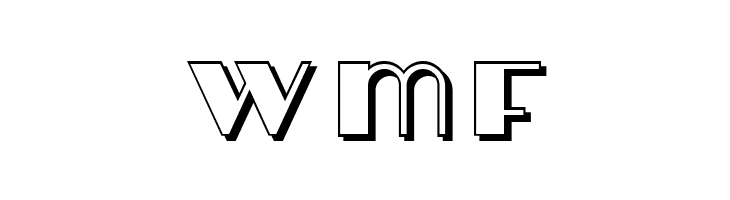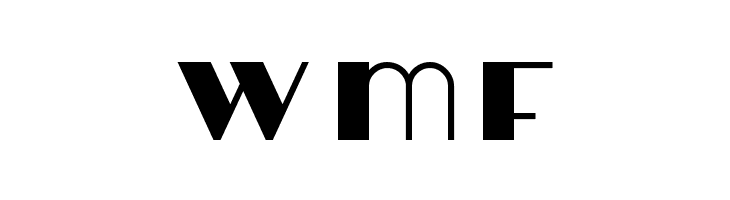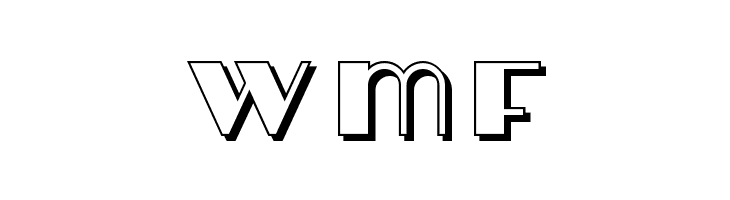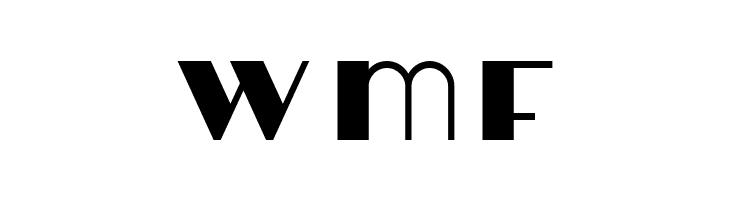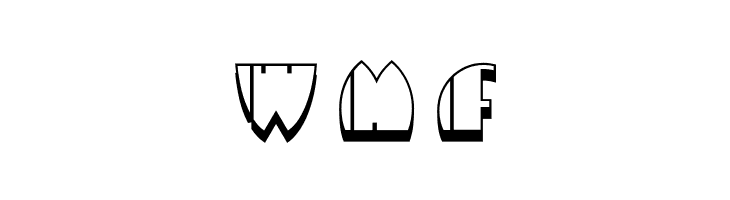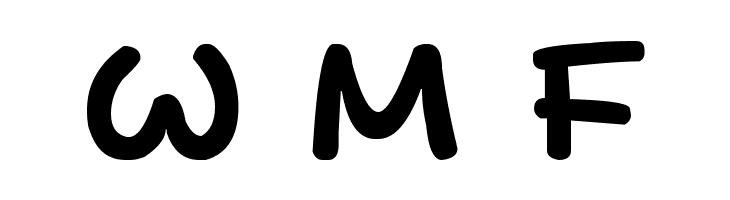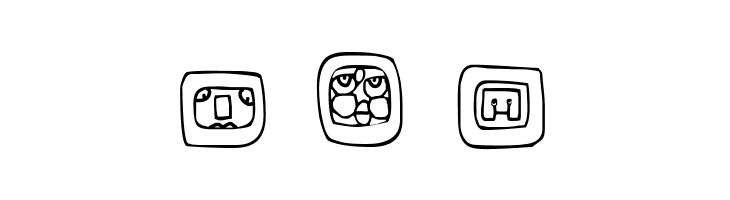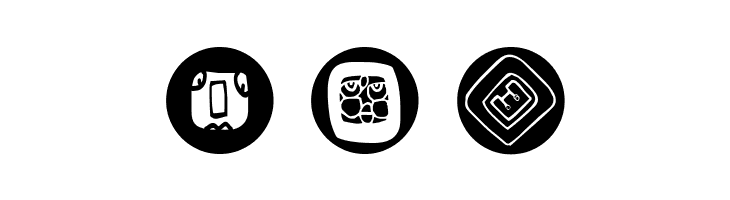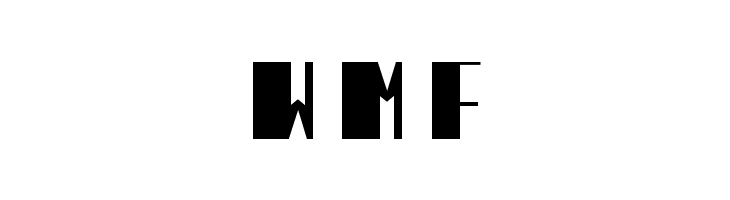
• HelveticaSchool
• Herald Square NF
A bold, geometric font with high contrast and modern appeal.
• Herald Square Two NF
A bold, decorative font with a three-dimensional shadow effect.
• HeraldSquareNF
A bold, geometric font with Art Deco influences and high contrast strokes.
• HeraldSquareTwoNF
A bold, geometric font with Art Deco influences and decorative elements.
• Hernán Heise
( Bejamin Müller - americasuena.cl )
A bold, geometric font with angular shapes and dynamic line weights.
• Hey Gorgeous
A playful, rounded font with bold strokes and a friendly vibe.
• HiddenSigns
A decorative font with glyph-like symbols resembling ancient hieroglyphs.
• HiddenSignsRings
Decorative pictographic font with ancient, glyph-like symbols in bold circles.
• High Five Jive NF
A bold, geometric font with a 3D shadow effect, ideal for impactful designs.